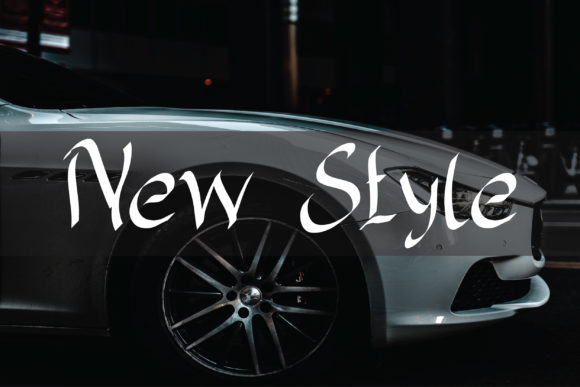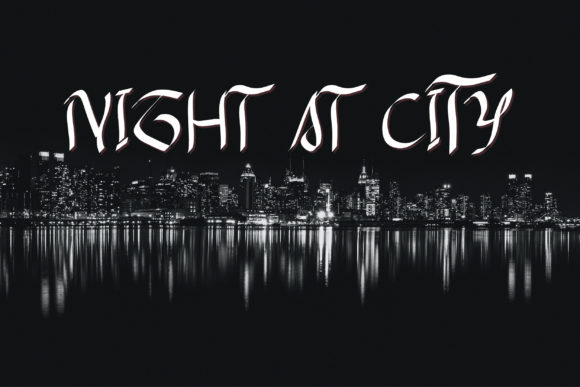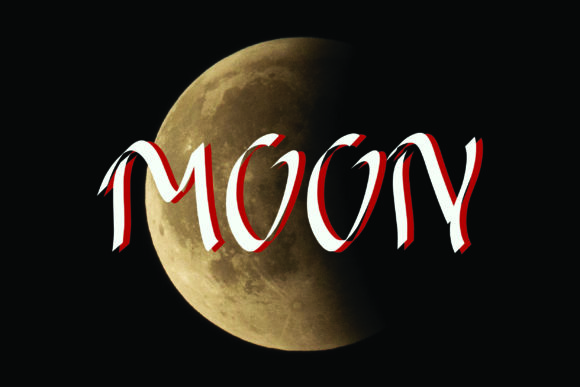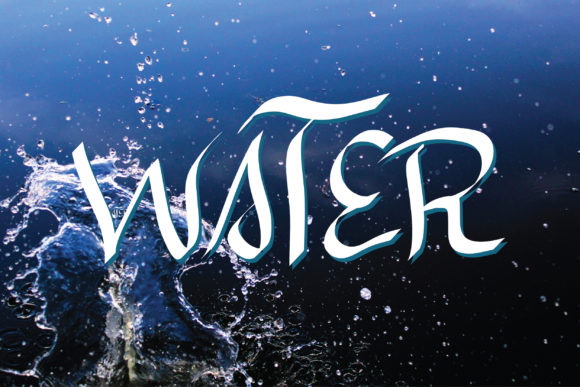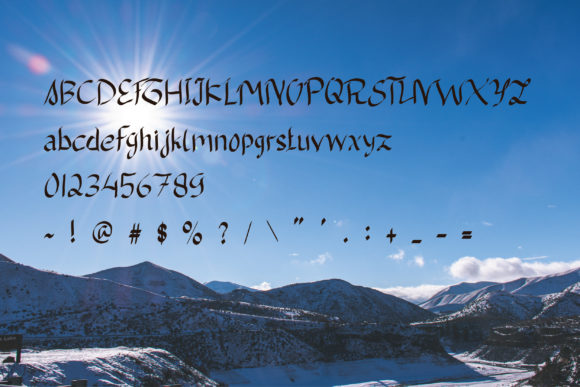
New Style Font
About New Style Font
New Style is an exquisite and original handwritten font. Dainty, readable and down to earth, this font will be ideal for writing wedding invitations, cards or any other design that may need a romantic, personalized touch!